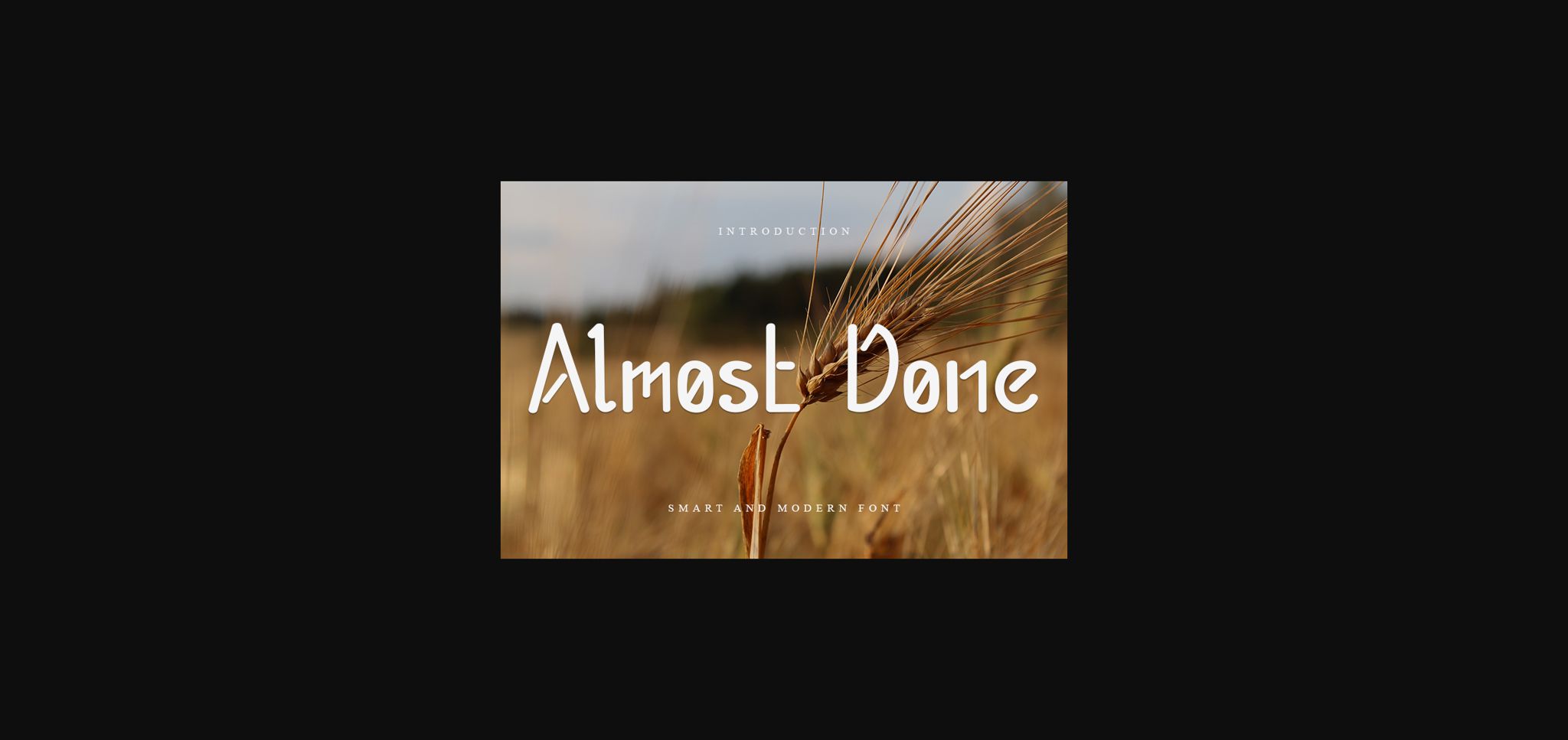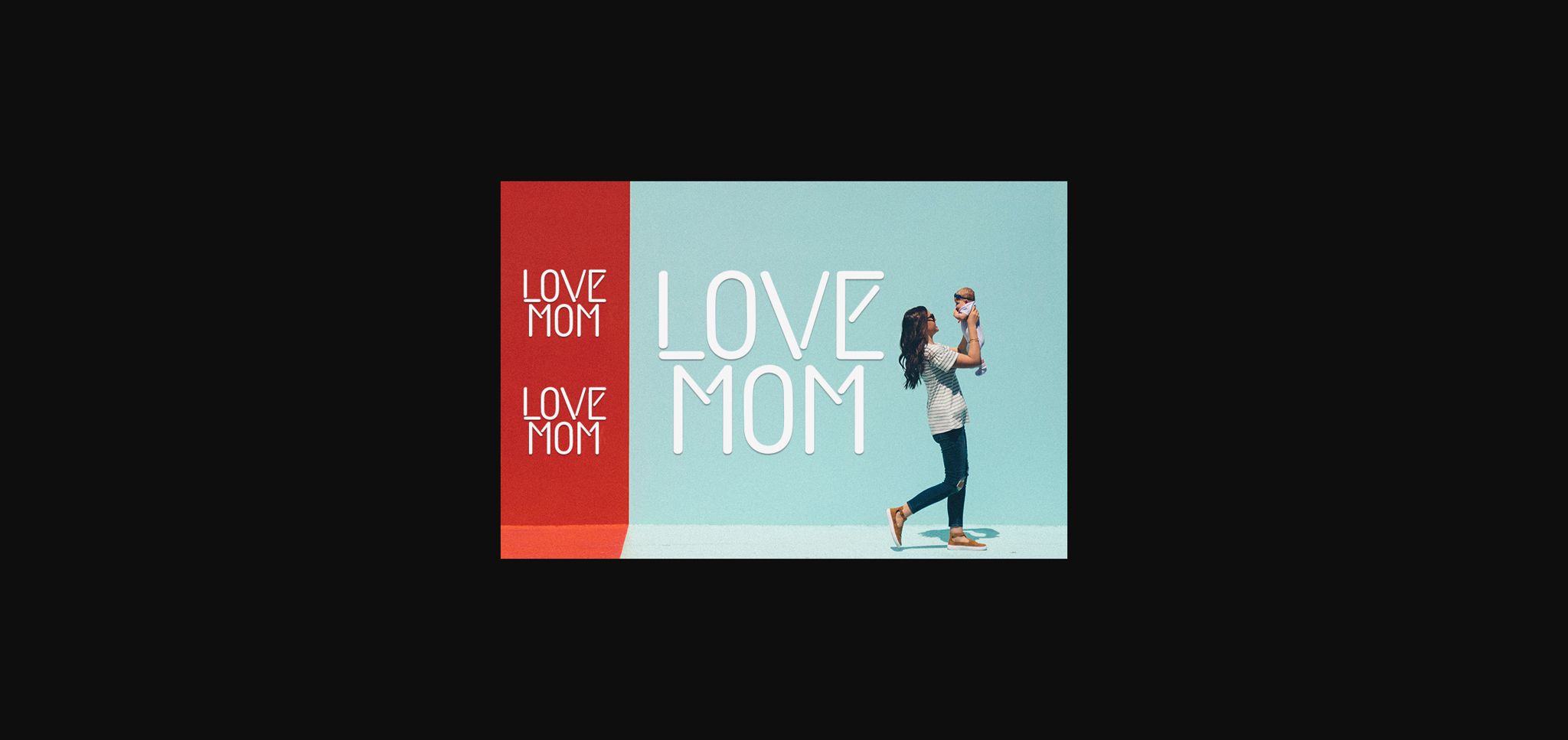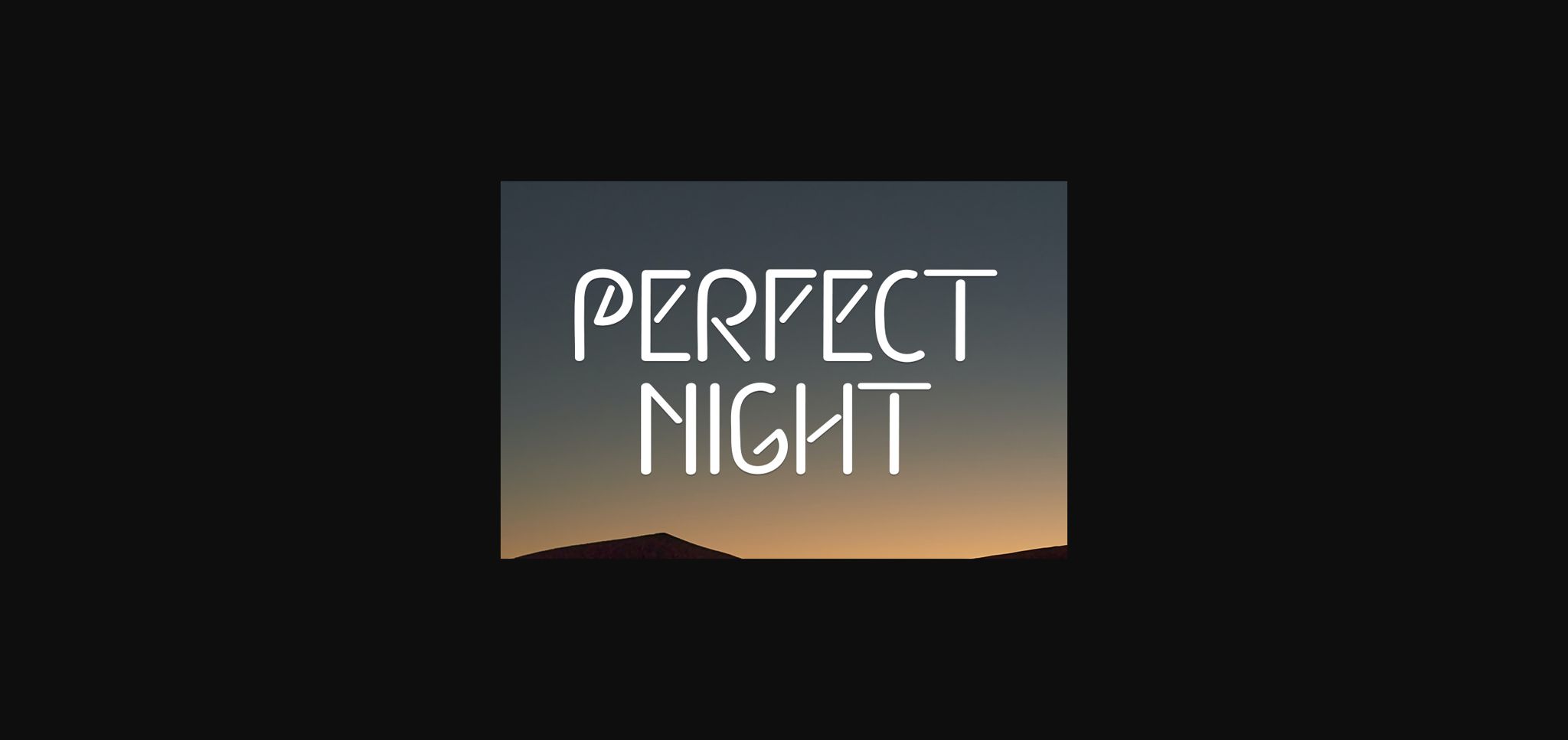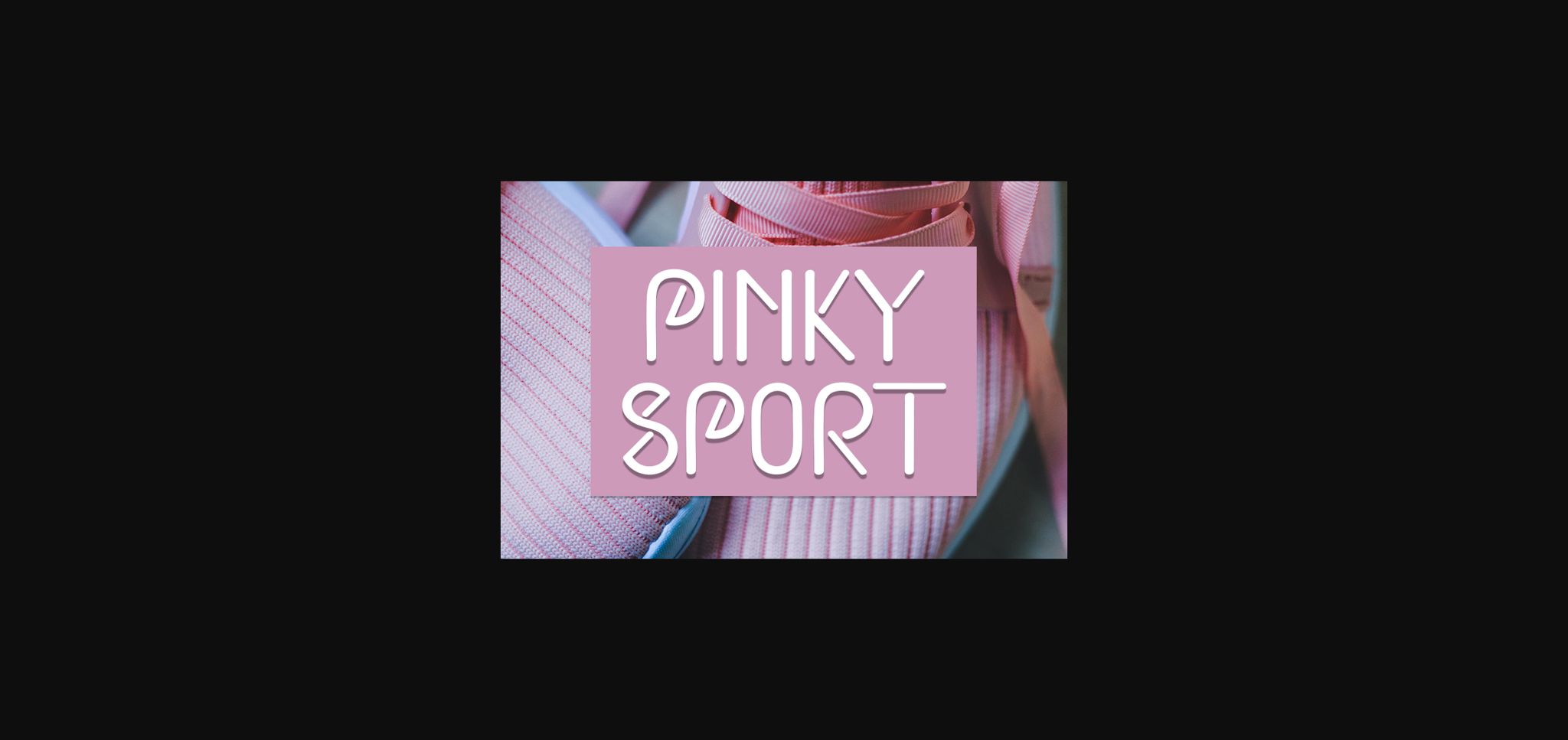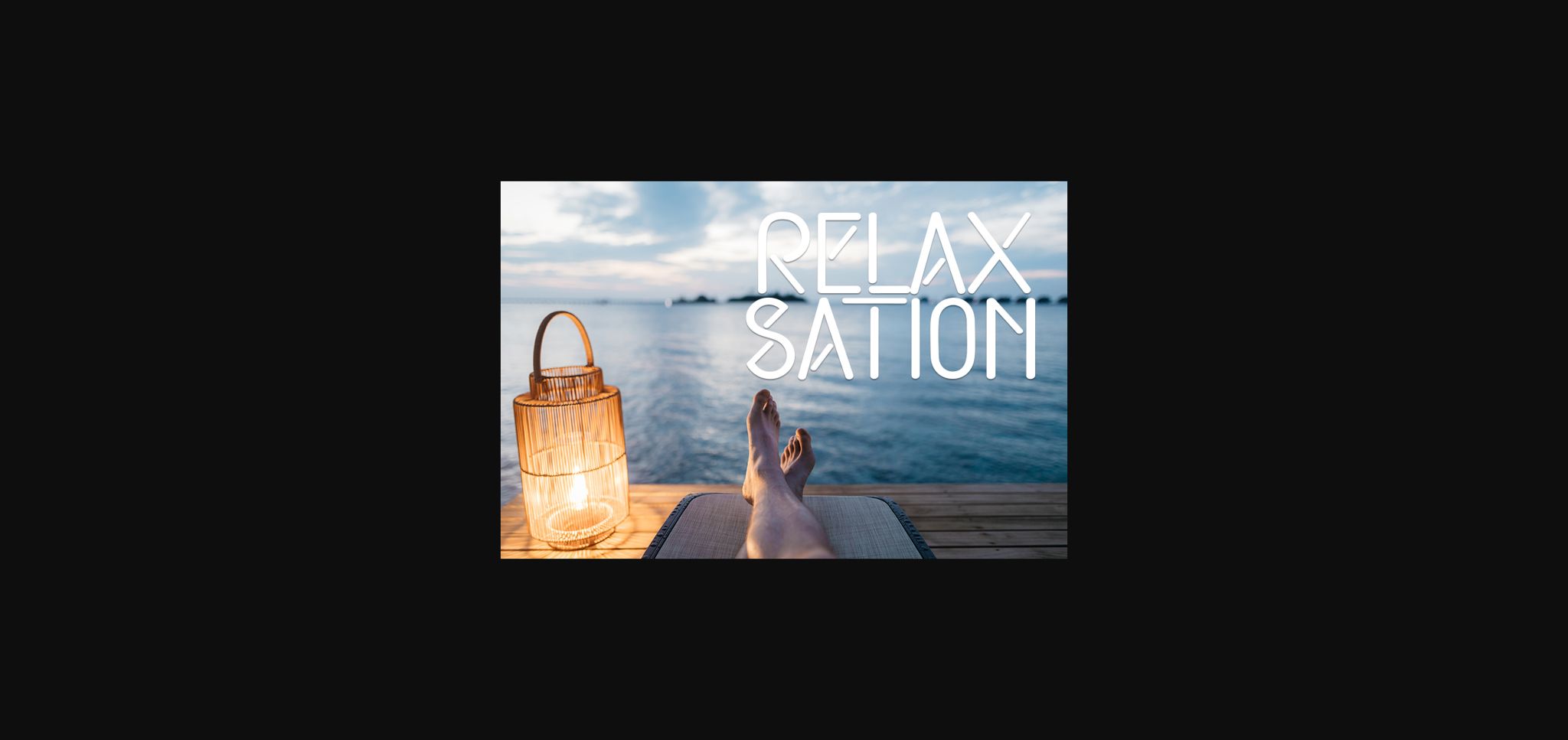
HomeSans Serif FontsAlmost Done Font Sans Serif Fonts Almost Done Font FacebookXPinterestWhatsApp 1 of 7 ... Almost Done Font Poster 2... Almost Done Font Poster 3... Almost Done Font Poster 4... Almost Done Font Poster 5... Almost Done Font Poster 6... Almost Done Font Poster 7... About Almost Done Font Almost Done is a cool, trendy and neat sans serif font. Simple but with a strong visual effect, this font will instantly make your creation more appealing than any others. DOWNLOAD NOW People also explored Magical Font Fishpond Font Hergola Font Andalusia Font Beach Sunday Absolute Joyful Font Farmhouse Christmas Font Karma Script Duo Font Midnight Font 399 0 TagsAlmost Done Font Previous articleMood Booster FontNext articleKalivo Font LEAVE A REPLY Cancel reply Comment: Please enter your comment! Name:* Please enter your name here Email:* You have entered an incorrect email address! Please enter your email address here Website: Save my name, email, and website in this browser for the next time I comment. Personal Use Free Little Pigeon Personal Use Free Read more about this font Beautiful Personal Use Free Read more about this font Penelope Brush Script Font Personal Use Free Read more about this font Pumpkin Type Halloween Font Personal Use Free Read more about this font BLOG Using Fonts in Digital Marketing: Tips to Strengthen Your Brand Identity In the realm of digital marketing, every visual element plays a crucial role in shaping a brand's identity, and fonts are no exception. The... Transform Your Website: Elevate Your Typography with 7 Best Web Font Generators Where to Buy American Fonts Online in 2024 How to Install and Use Fonts on Windows, macOS, and Web Projects